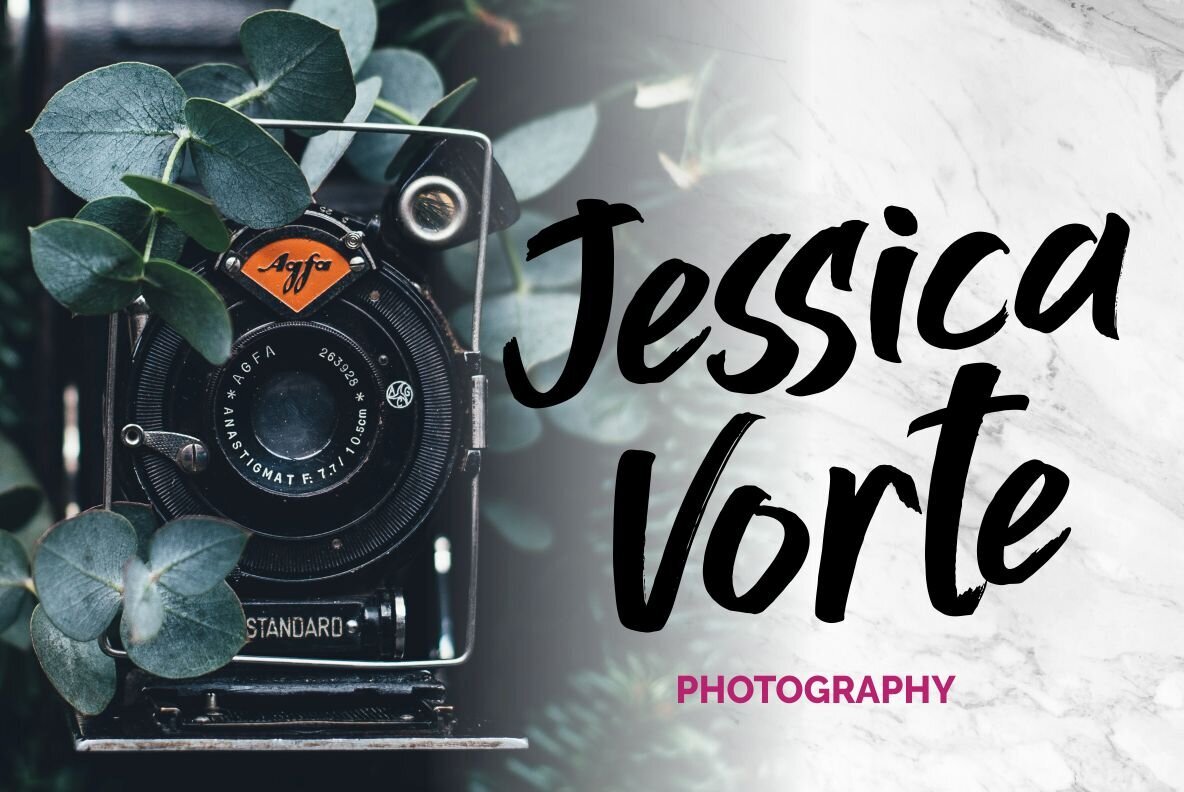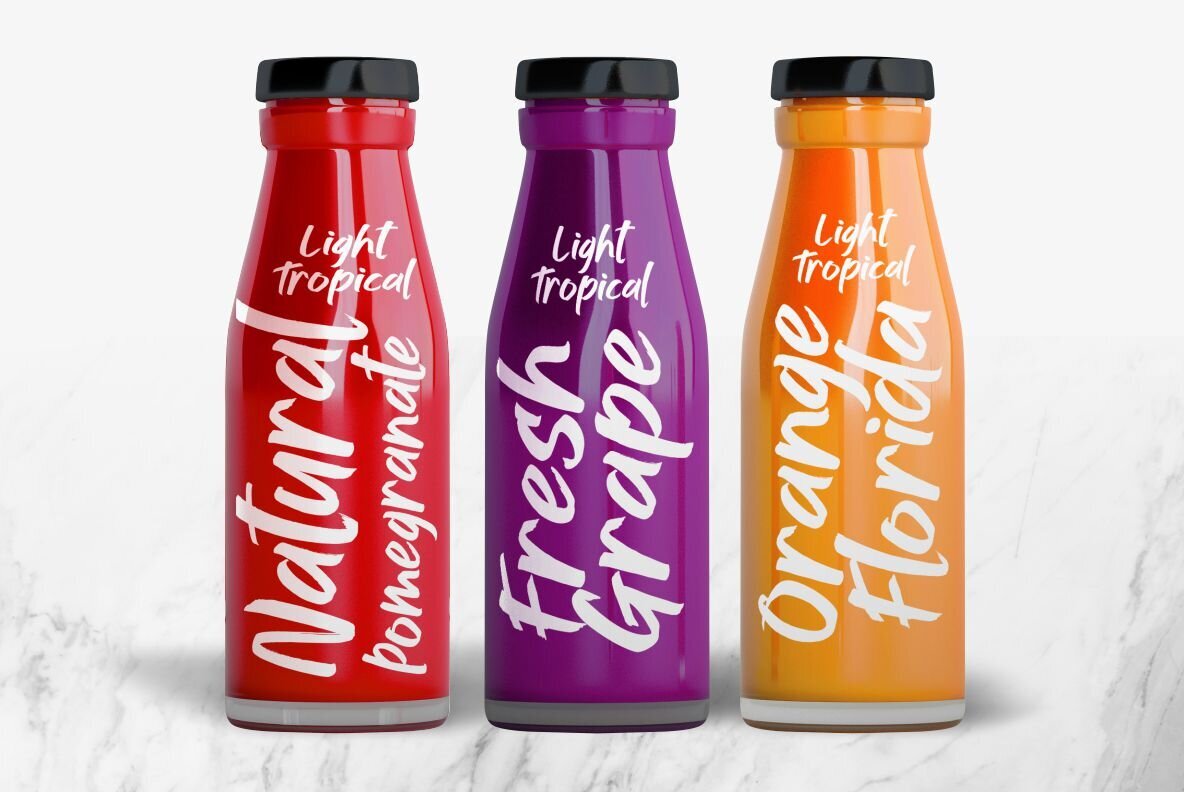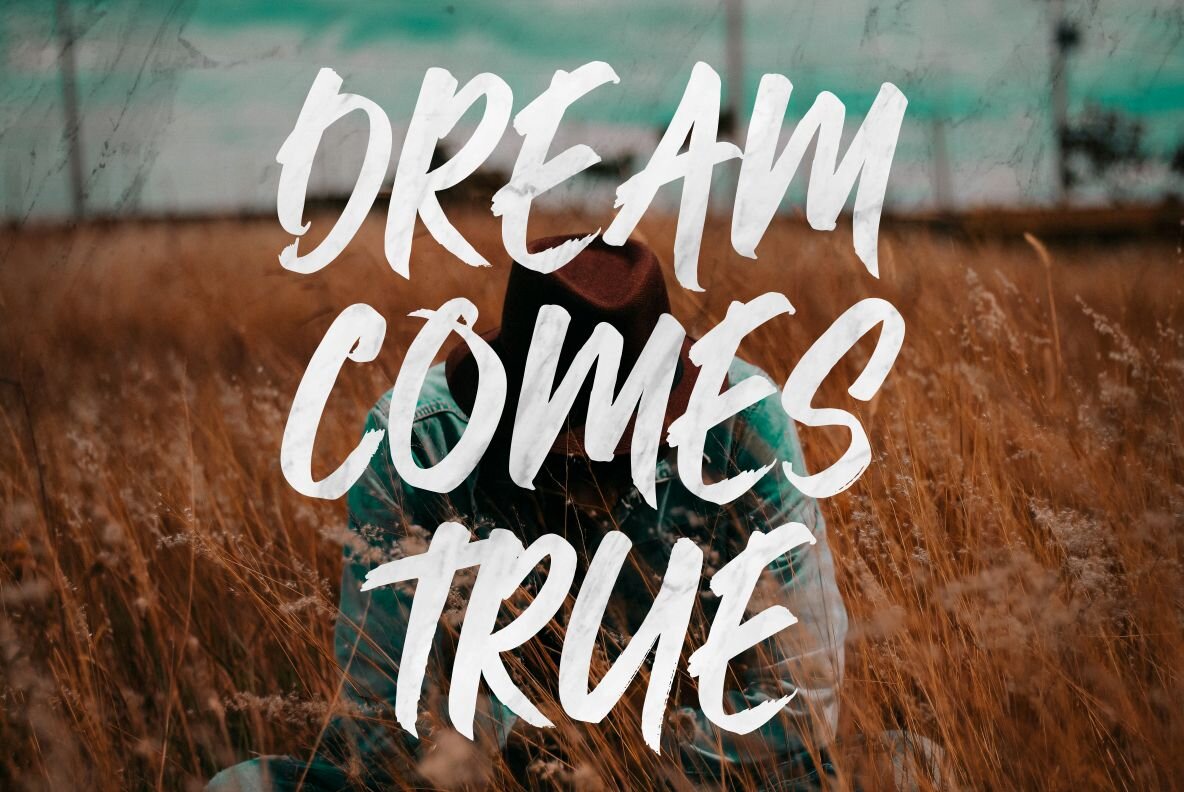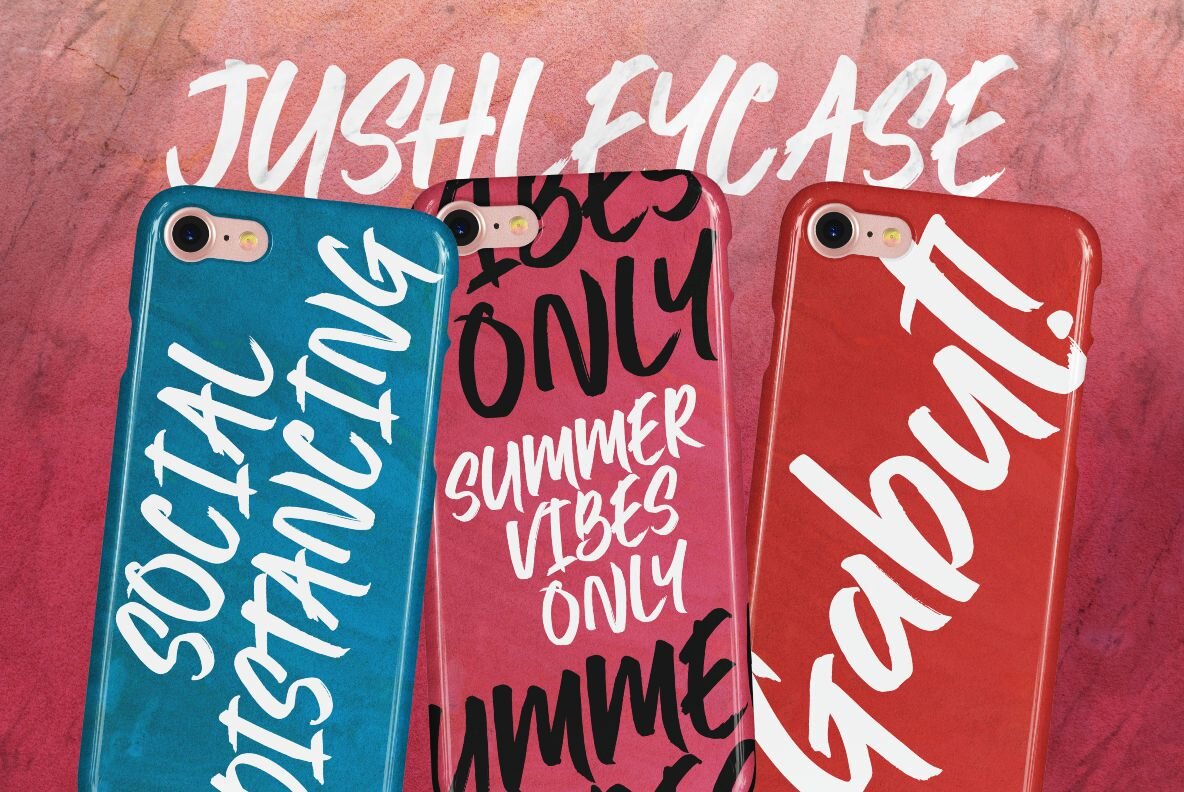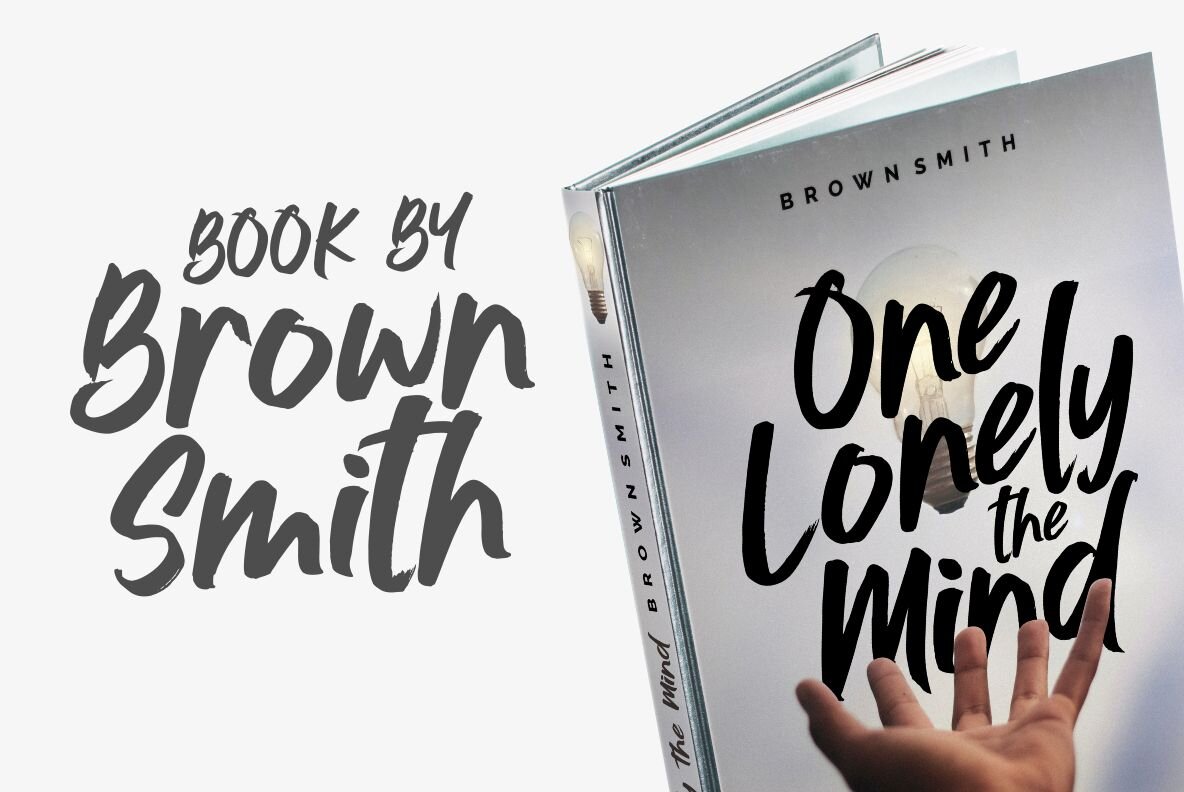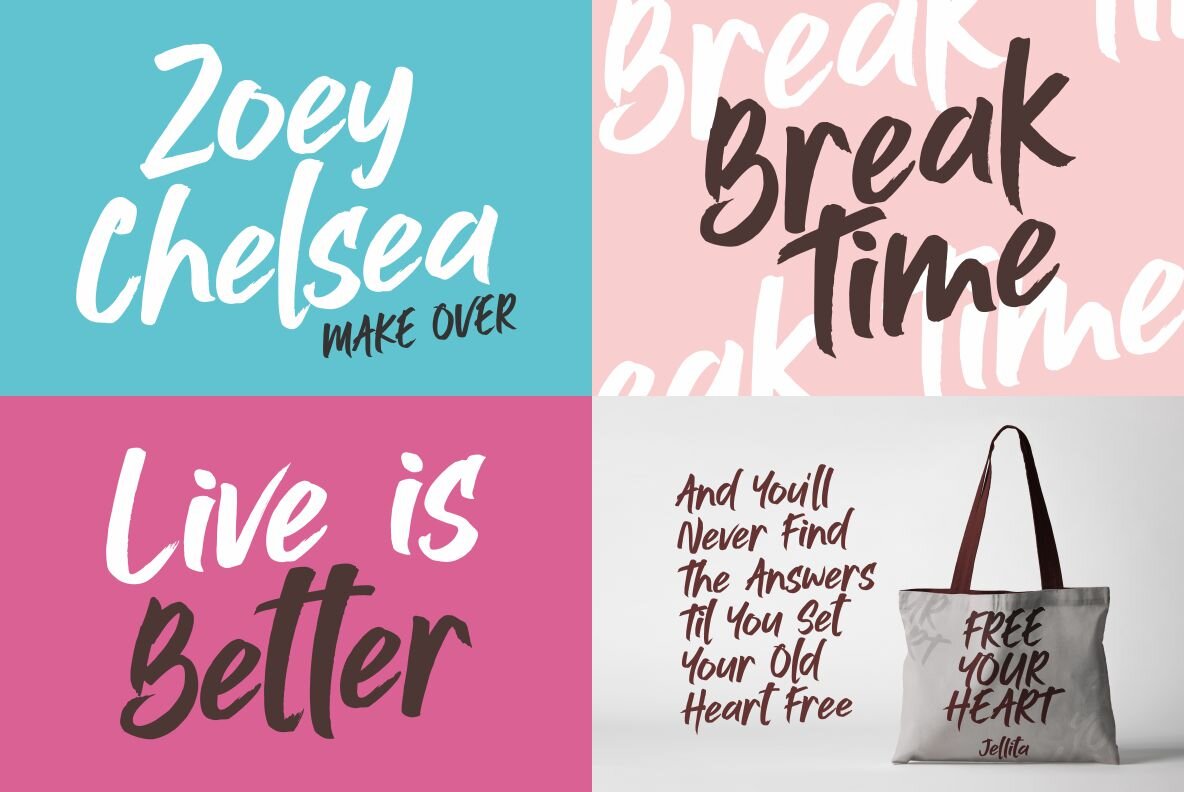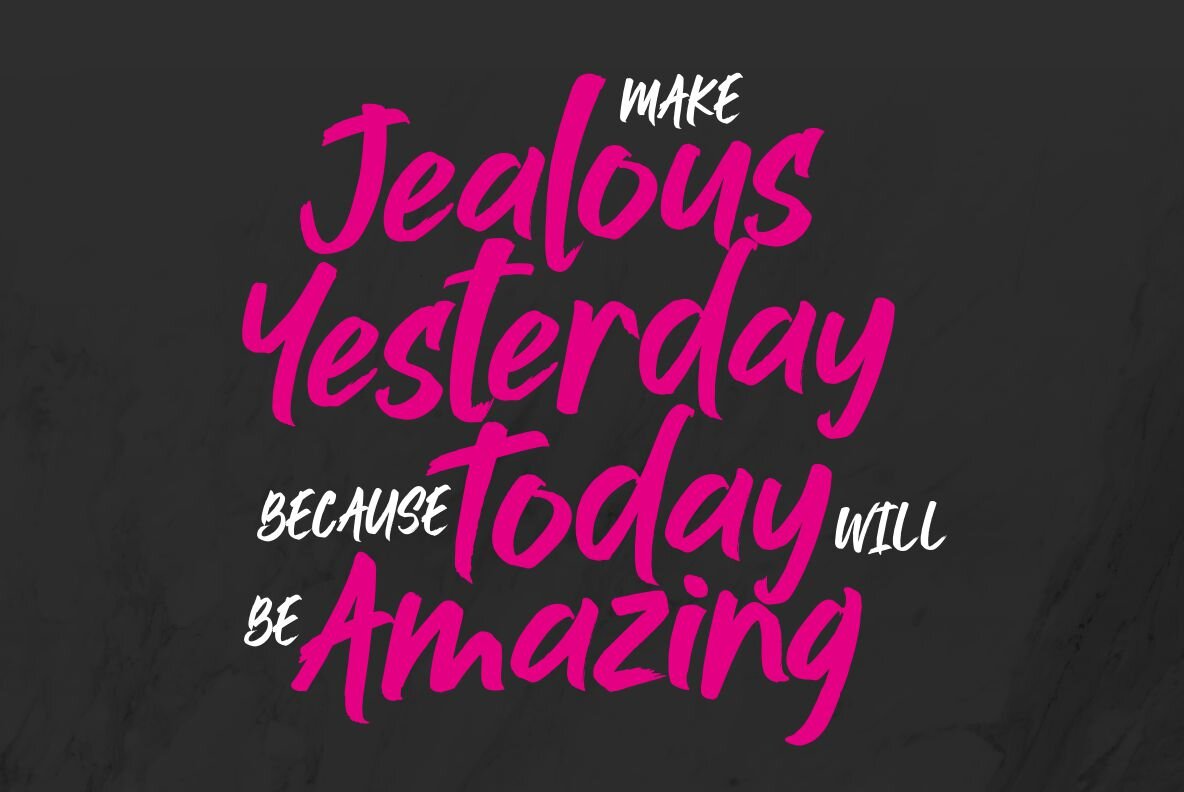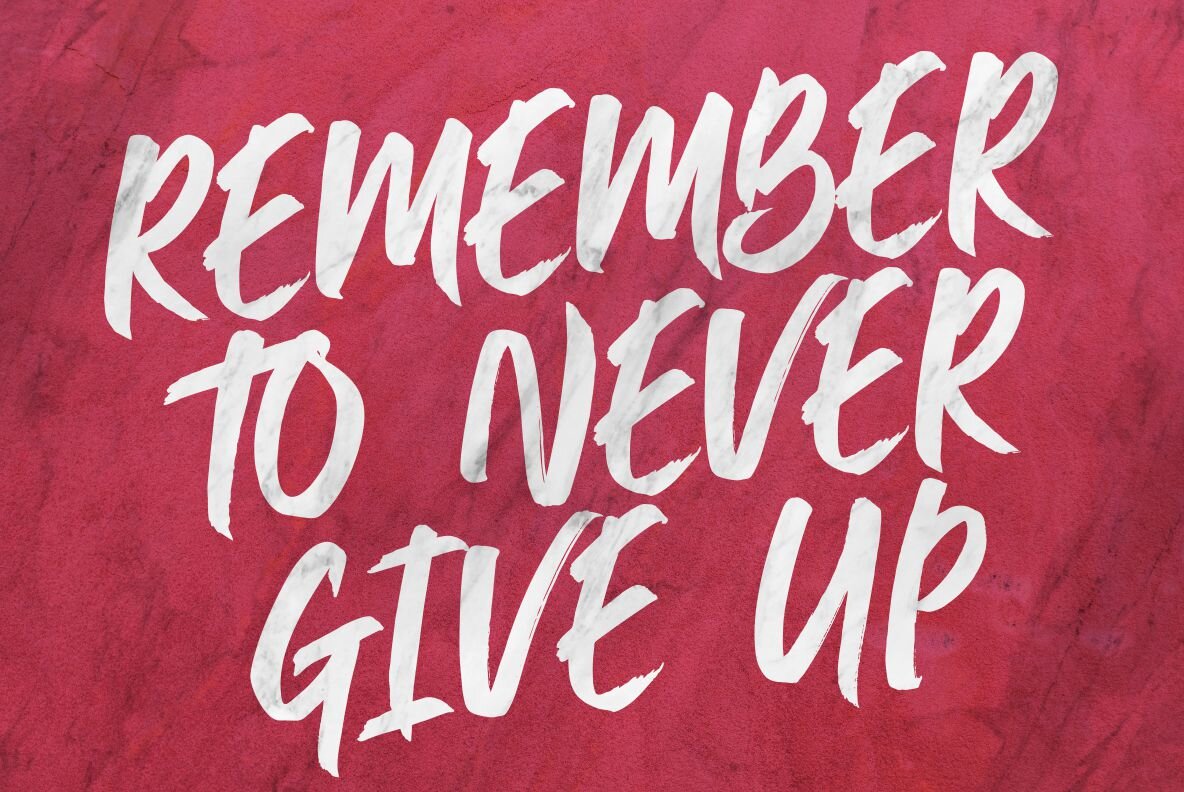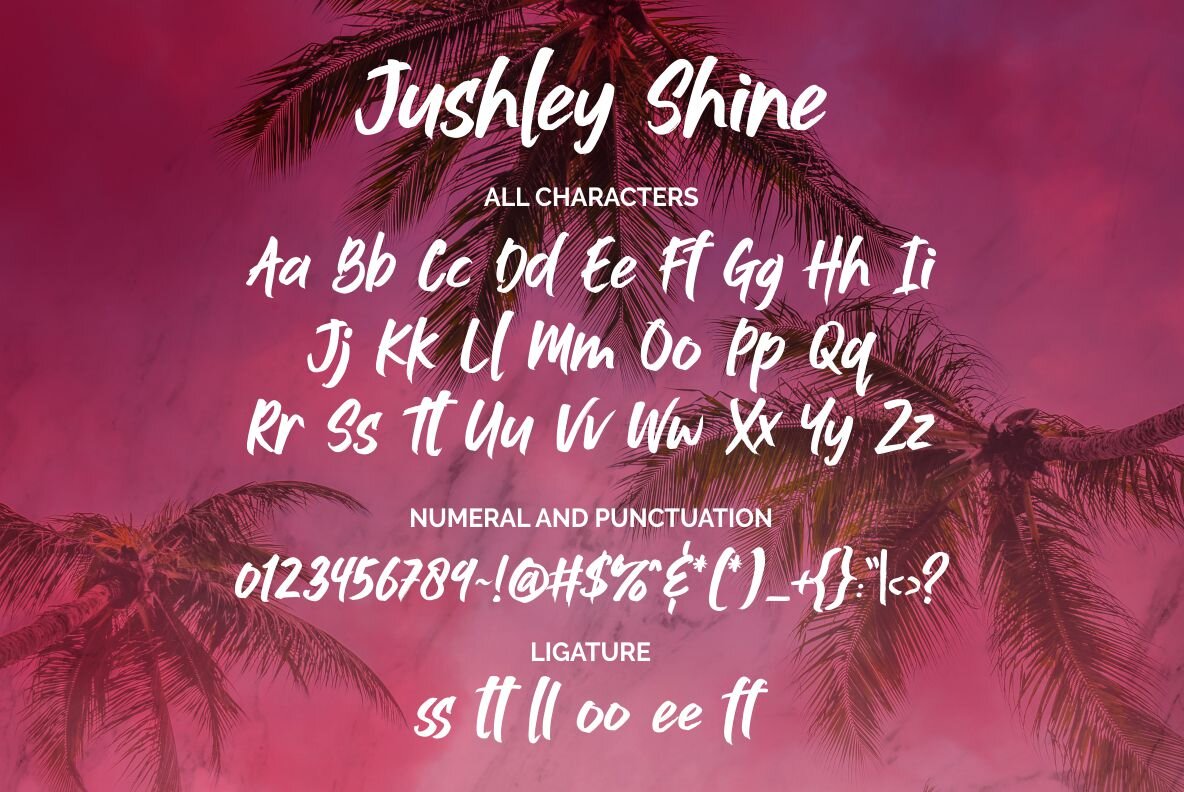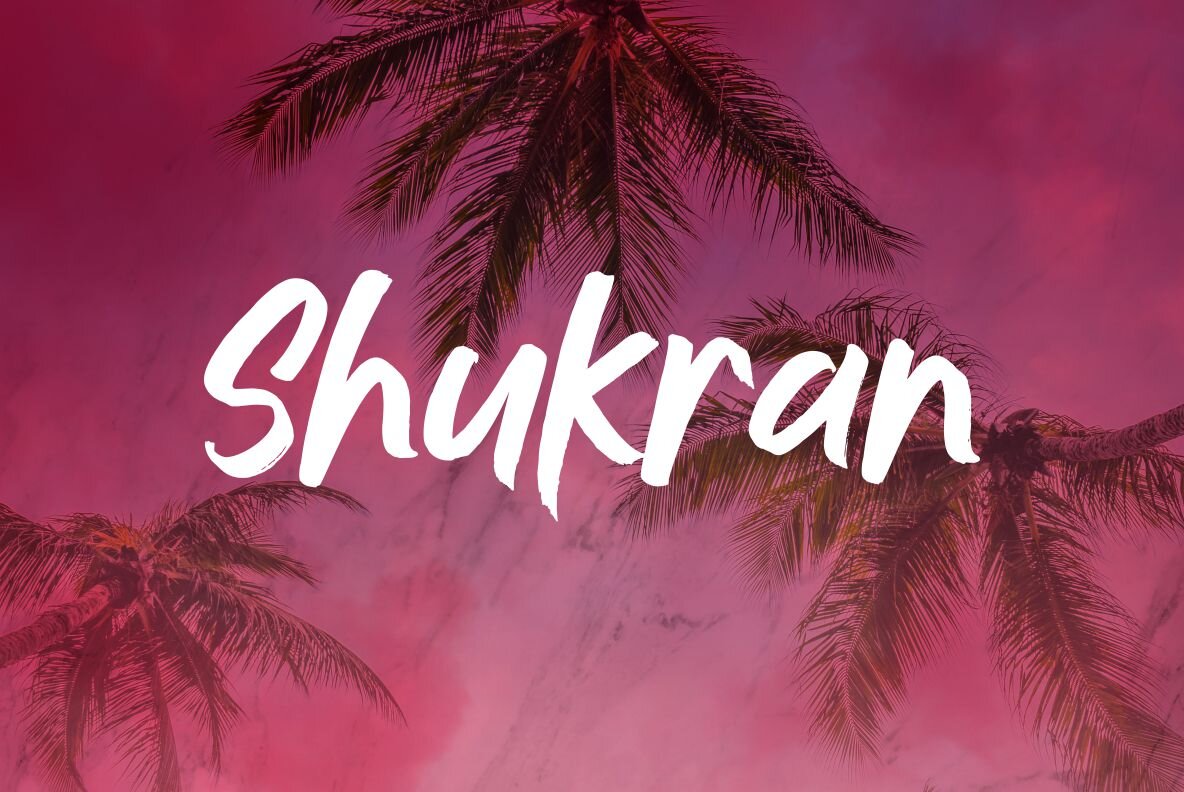
Jushley Shine Font
Jushley Shine Regular
The Jushley Shine font is a handcrafted brush typeface, infused with the essence of expressive handwriting. Its dynamic character set encompasses both lowercase and uppercase letters, along with an array of symbols, ensuring versatility in a wide range of design applications. Perfect for projects that demand a personalized touch, Jushley Shine is well-suited for creating impactful branding materials. Whether you're designing stylish fashion packaging or composing elegant wedding invitations, this font provides a charming handwritten quality that resonates with authenticity.Jushley Shine: A Versatile Brush Typeface